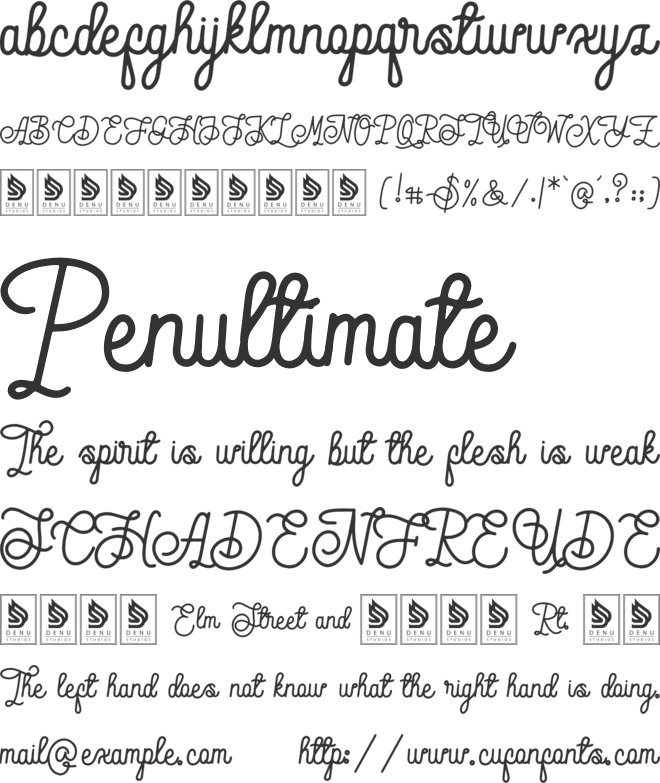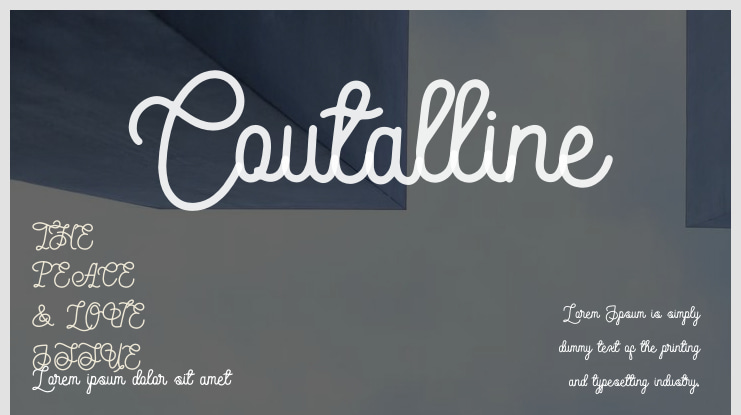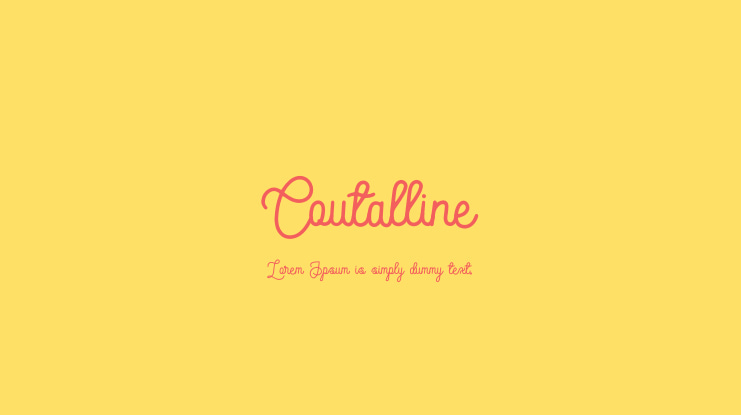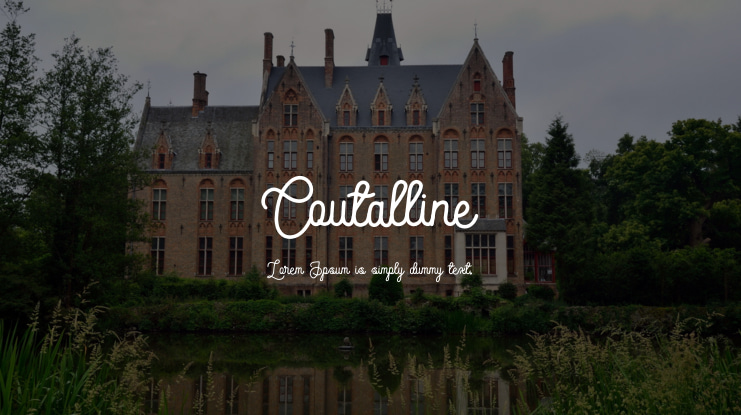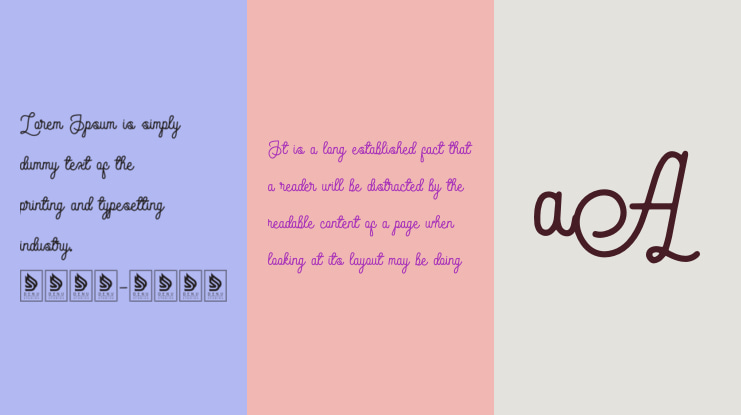
Dede Nugraha
**Coutalline | Monoline Script**
Coutalline | Monoline Script is perfect for a wide range of projects including logos, branding, homeware designs, product packaging, mugs, quotes, posters, shopping bags, t-shirts, book covers, name cards, invitation cards, greeting cards, labels, photography, watermarks, special events, and any other beautiful projects that require a touch of elegance.